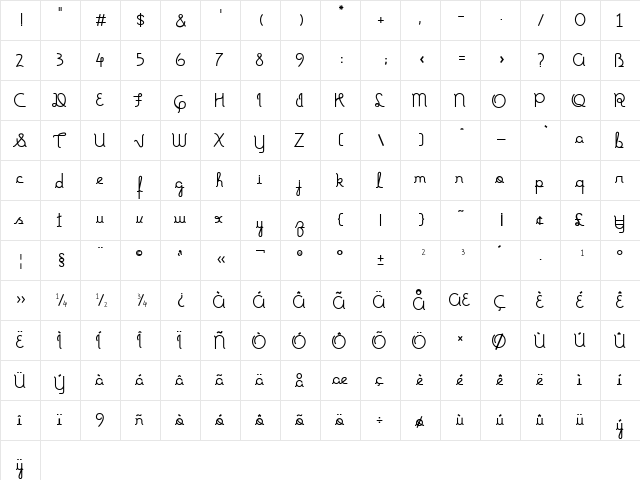
Tia Marcia Regular
Design Context for Tia Marcia Typeface
Tia Marcia takes a measured approach to typography — its balanced proportions and neutral character make it a reliable workhorse for both digital and print work.